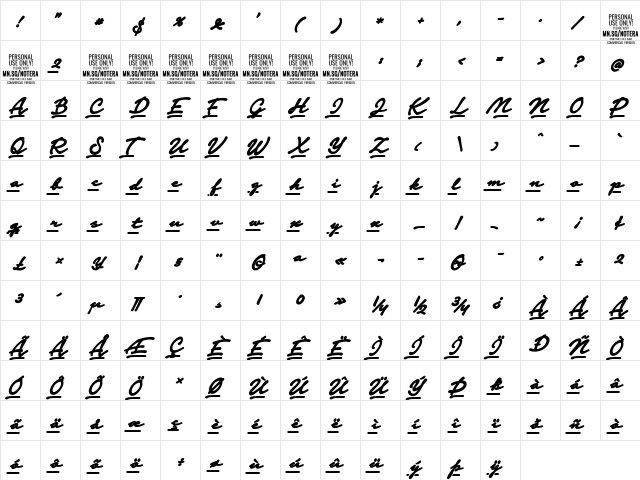
Notera 2 Underline PERSONAL USE Black
| Foundry | Mans Greback |
| Designer | Mans Greback |
Design Context for Notera 2 Underline PERSONAL USE Typeface
Notera 2 Underline PERSONAL USE is a composed and adaptable typeface that performs quietly and consistently across a wide range of design contexts.